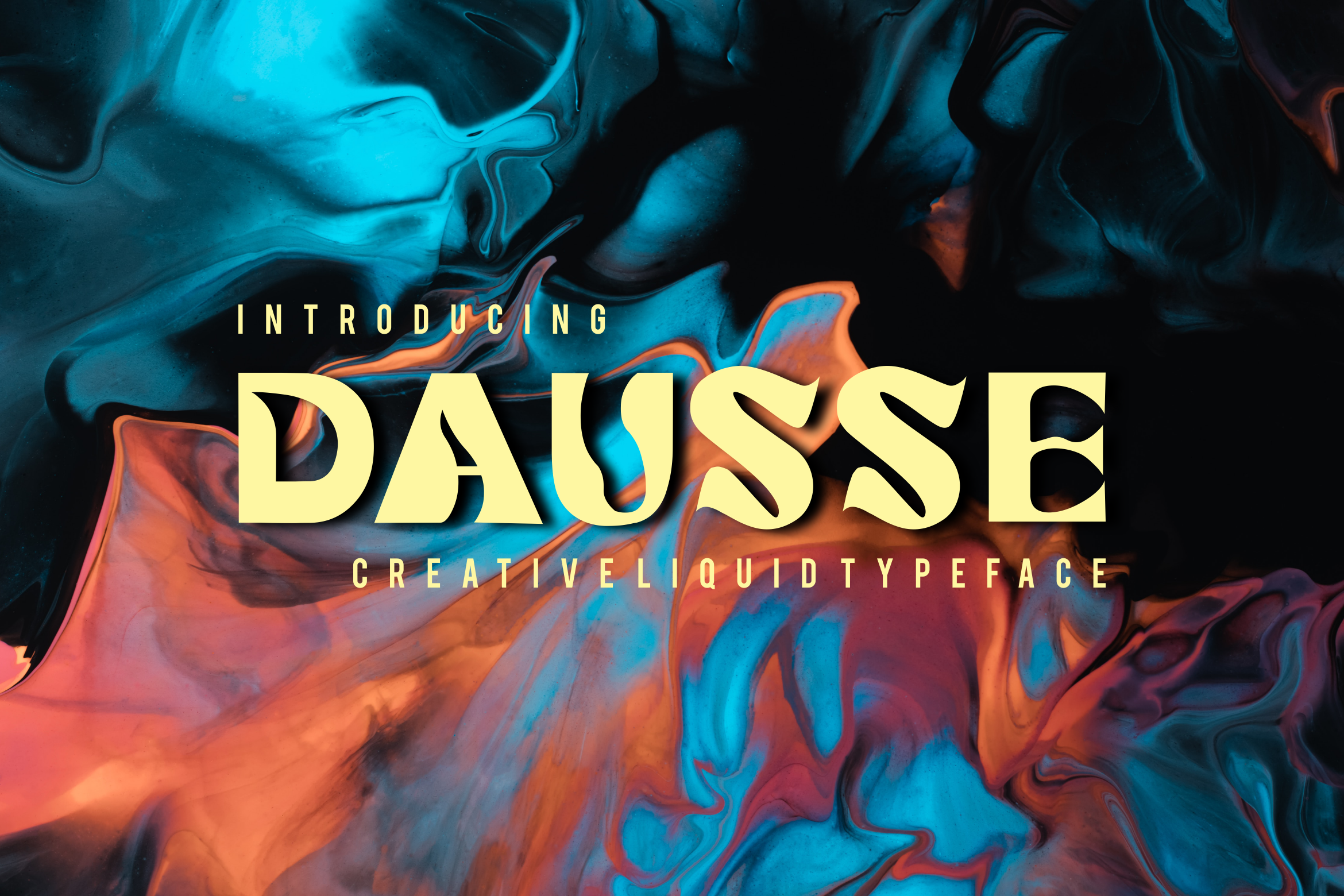
Dausse Creative Typeface
Dausse is creative font that we designed with original touch for your needs. This cool font is complete with Uppercase, Lowercase, Numeric & symbols. This very strong and sharp font is perfect for titles, typography, posters, magazines, brochures, packaging, Websites and much more for your design needs, making your designs more cool.